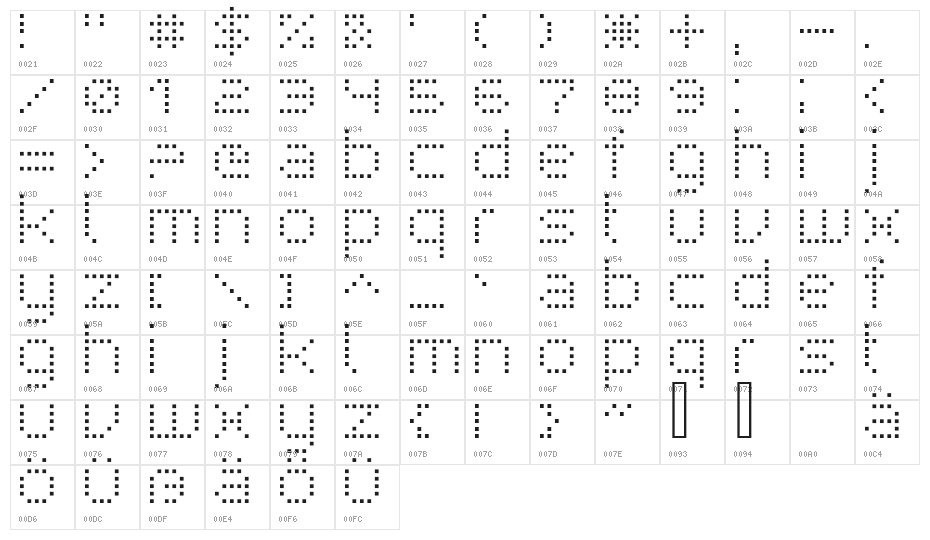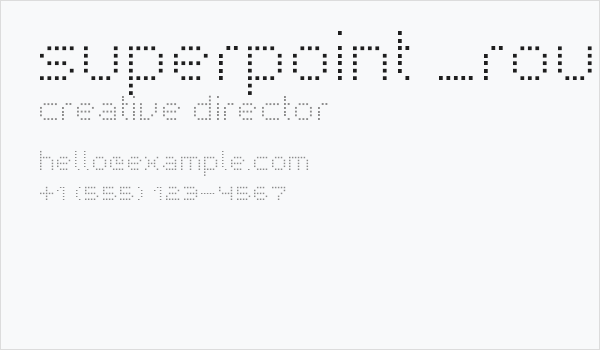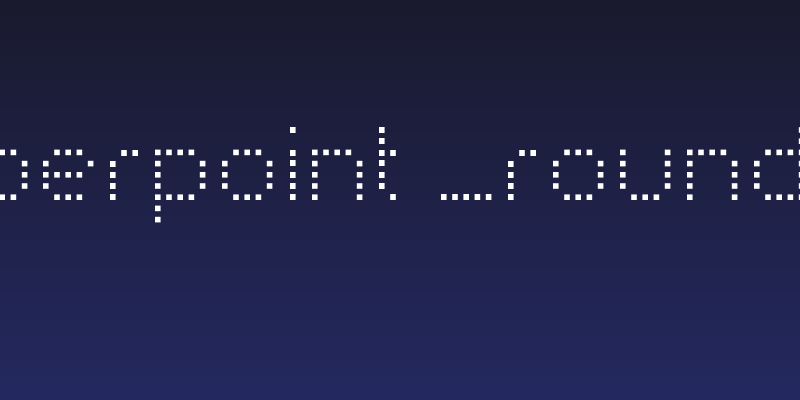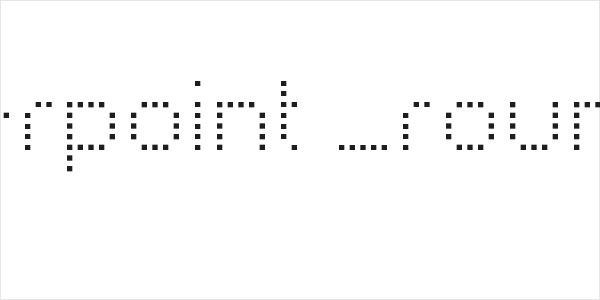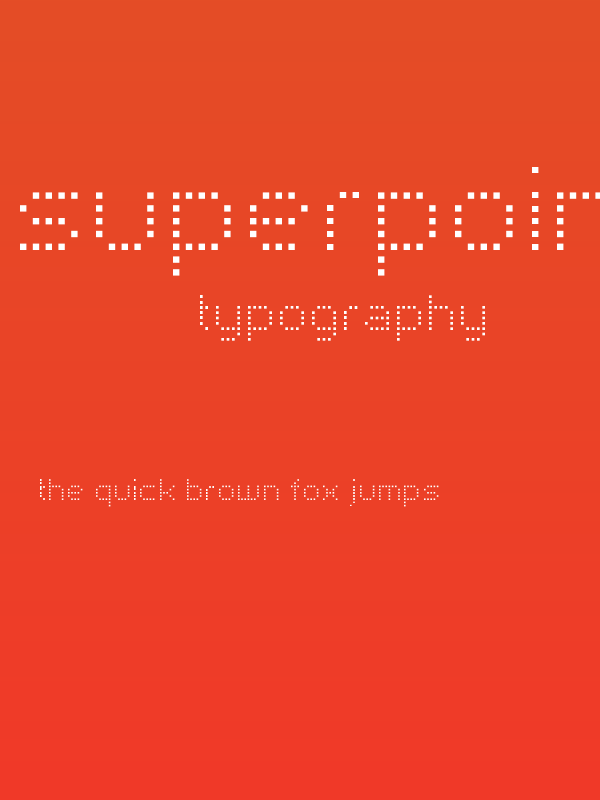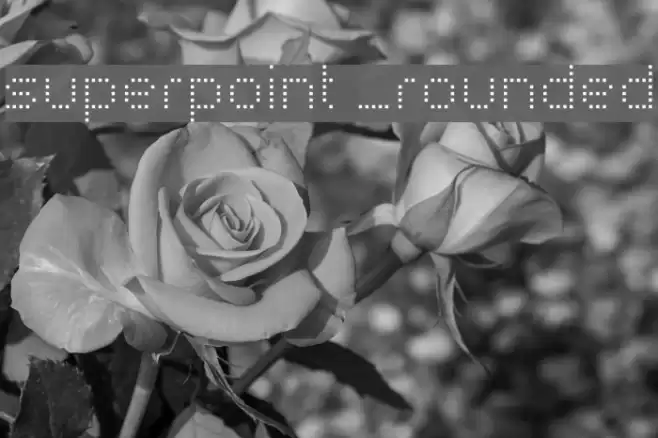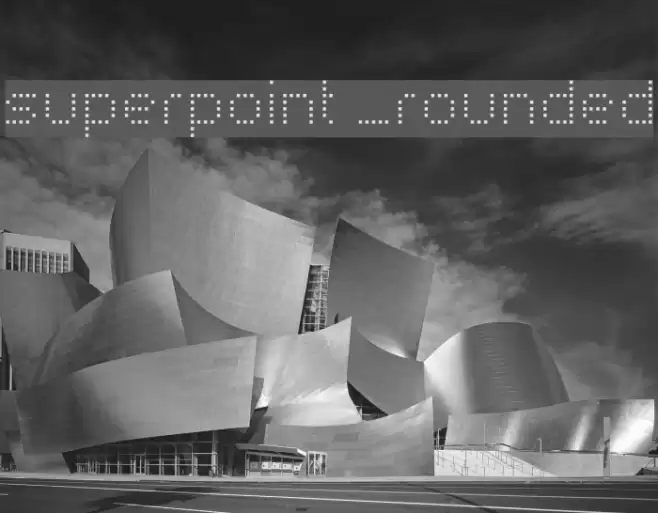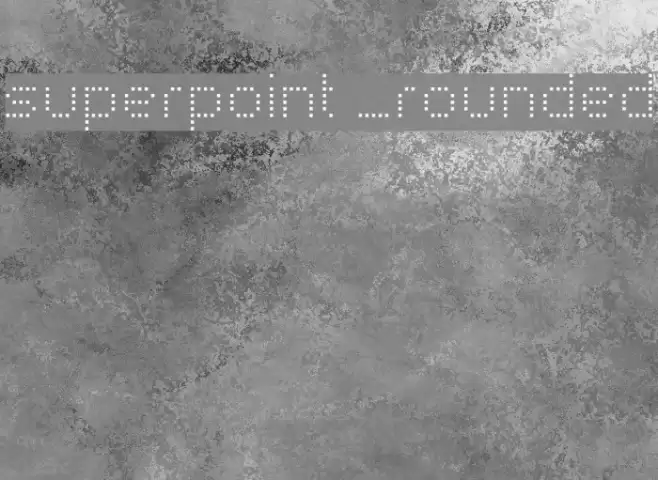
superpoint _rounded Font
superpoint _rounded Description
This font features a unique dotted design where each character is composed of small, evenly spaced dots. The rounded appearance of the dots gives it a soft, approachable feel while maintaining a modern and digital aesthetic. The characters are monospaced, ensuring uniformity and balance across the text. This style is reminiscent of digital displays or LED screens, making it ideal for tech-related projects. The font includes a full set of uppercase and lowercase letters, numbers, and a selection of special characters, all maintaining the consistent dotted pattern.
| Use Case | Logos, Headlines, Digital displays |
| Proposed Projects | Ideal for digital displays, tech branding, modern art projects, and innovative advertising. |